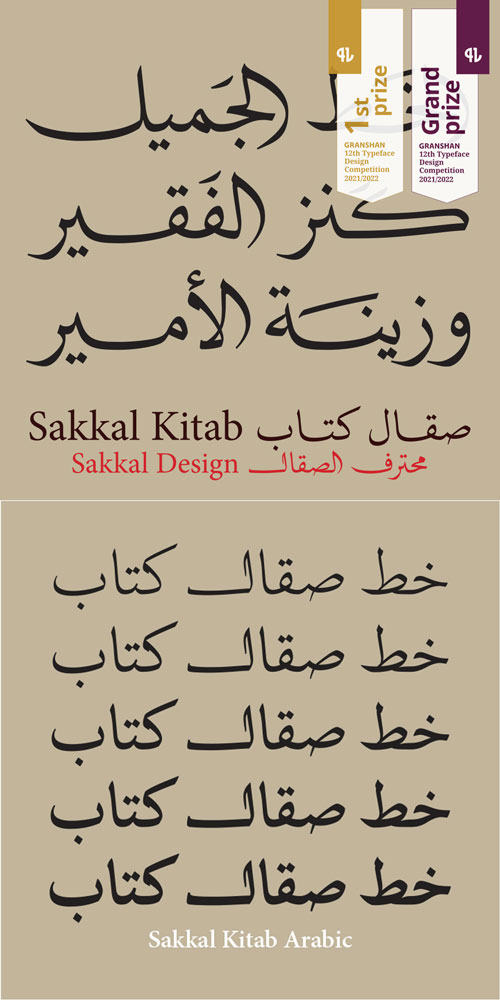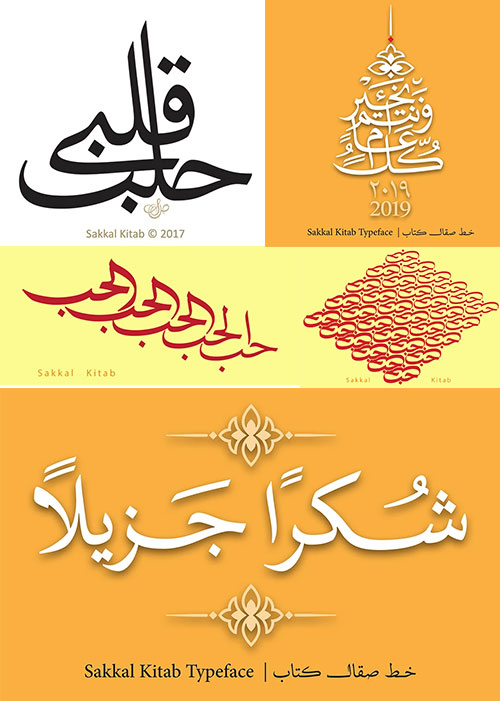
- Sakkal Kitab is an exquisite traditional Naskh typeface that preserves the elegance and beauty of calligraphic Arabic. Sakkal Kitab, ‘kitab’ meaning ‘book’, is drawn in a contemporary fashion while managing to seamlessly marry heritage with present-day aesthetics. The calligraphic mastery and skill of the exemplar letterforms has been beautifully carried into the digital fonts with remarkable grace and aplomb.